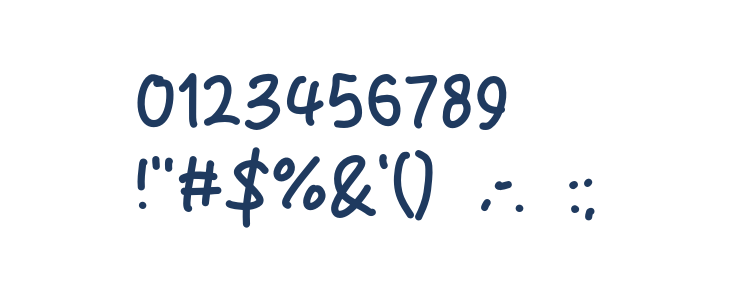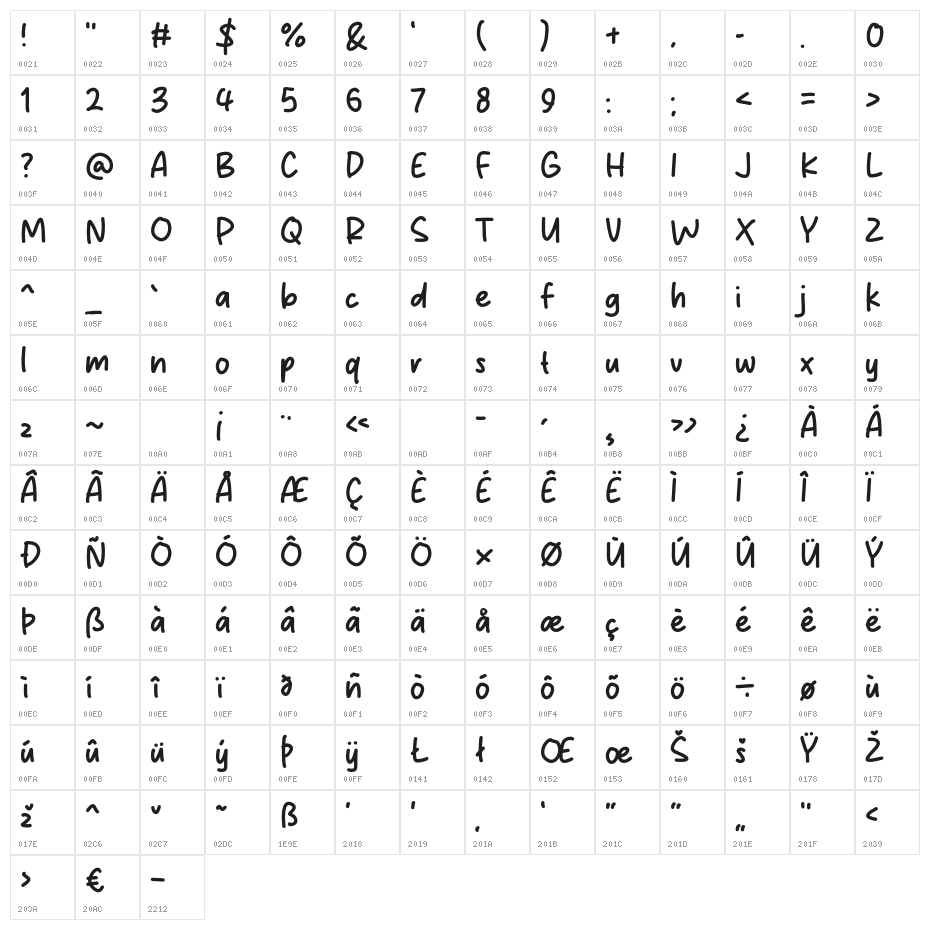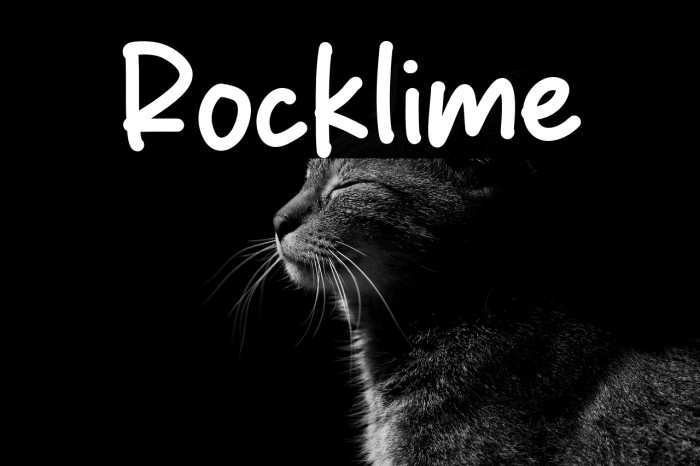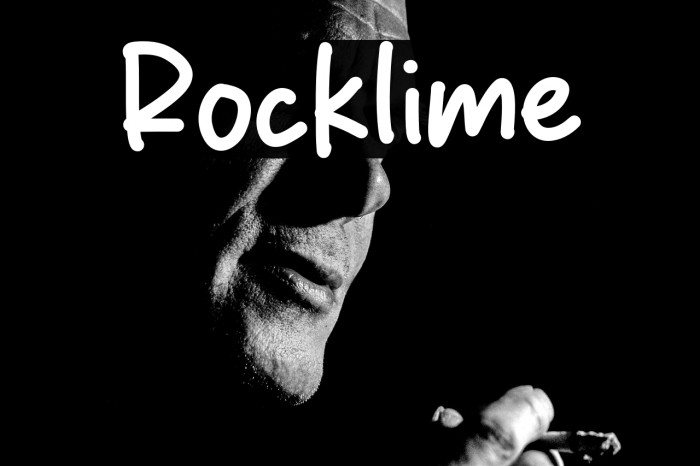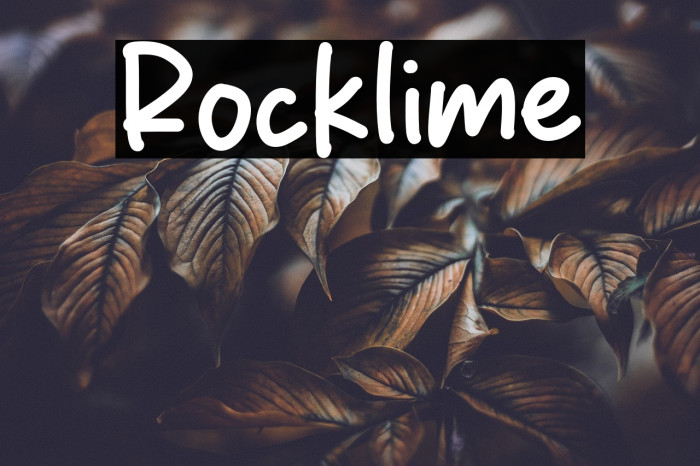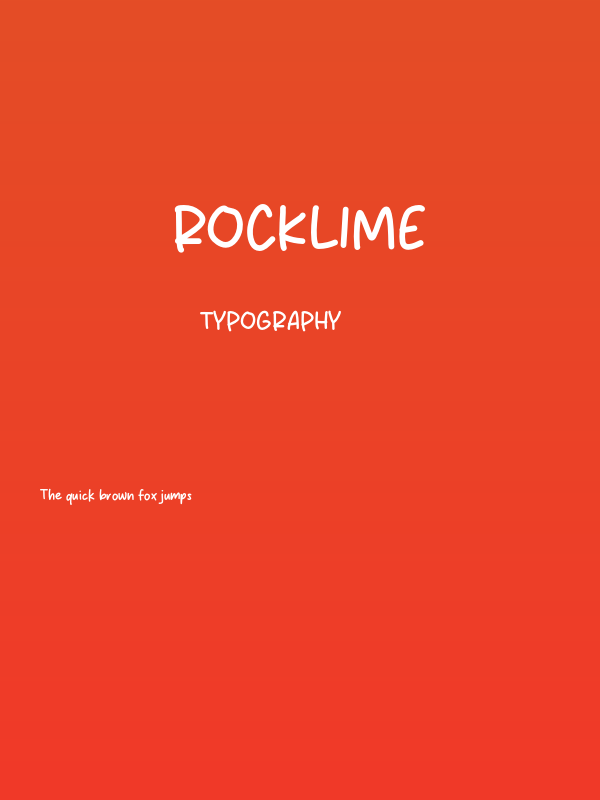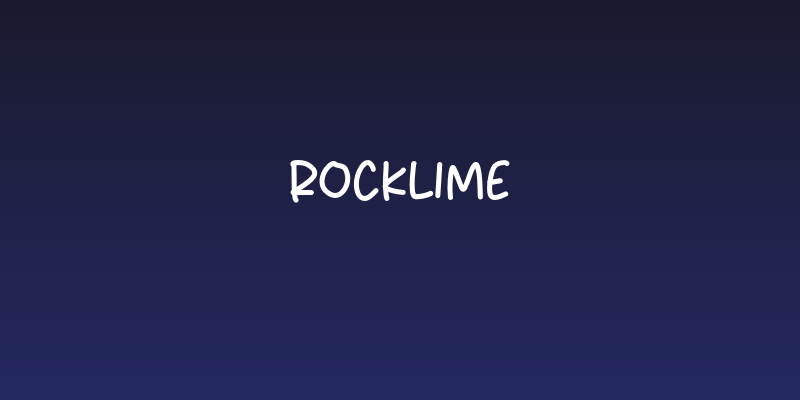
Rocklime Font
Rocklime Description
This font exudes a playful and casual handwritten style, characterized by its smooth, rounded edges and slightly irregular letterforms that give it a personal touch. The uppercase and lowercase letters maintain a consistent flow, with a slight tilt that adds to its informal charm. The numerals and special characters are crafted with the same attention to detail, ensuring readability while maintaining the font's unique personality. Its overall appearance is friendly and approachable, making it suitable for projects that require a human touch.
| Overall Style | Casual |
| Use Case | Logos, Headlines, Informal Text |
| Proposed Projects | Ideal for greeting cards, children's books, casual branding, and social media graphics. |